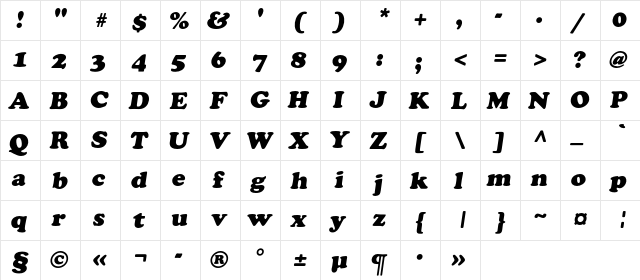
AGCrownC Italic Font Preview
AGCrownC Italic
AGCrownC Italic Font Details
Design Context for AGCrownC Typeface
AGCrownC takes a measured approach to typography — its balanced proportions and neutral character make it a reliable workhorse for both digital and print work. Its italic angle brings a sense of urgency and motion to the letterforms.
Pro Tip: Use AGCrownC for emphasis, pull quotes, and subheadings where its slanted energy can add rhythm to the layout.